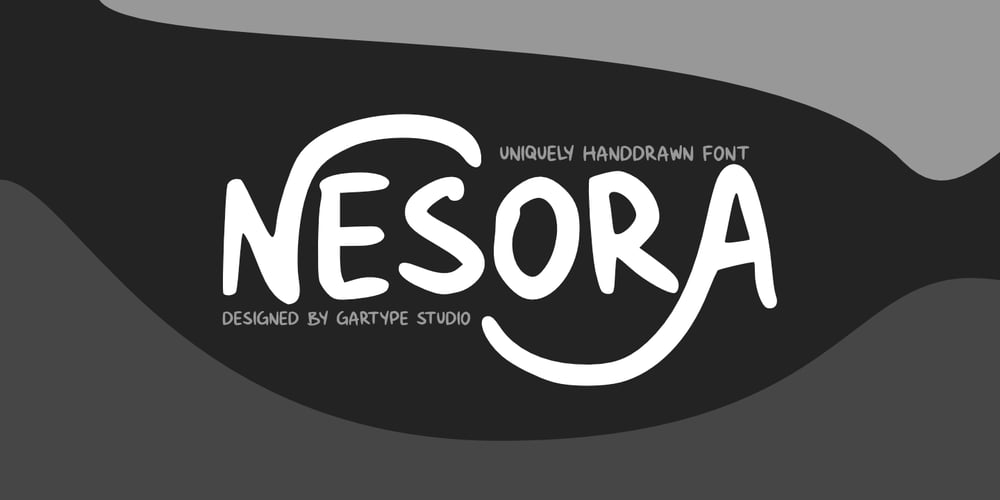
Nesora GT Font Family was designed by Gumilang Anggara Ruslan and published by Gartype Studio. Nesora GT contains 2 styles and family package options. Lookin for unique logo font? we present to you Nesora, a bold handwritten font that was comes with alternates font and multilingual glyphs to easily use this uniwue logotype fontNesora is very suitable like as logo, tagline, adventure project, posters, book cover & etc.To use alternate this font just change the regular font to alternate font.